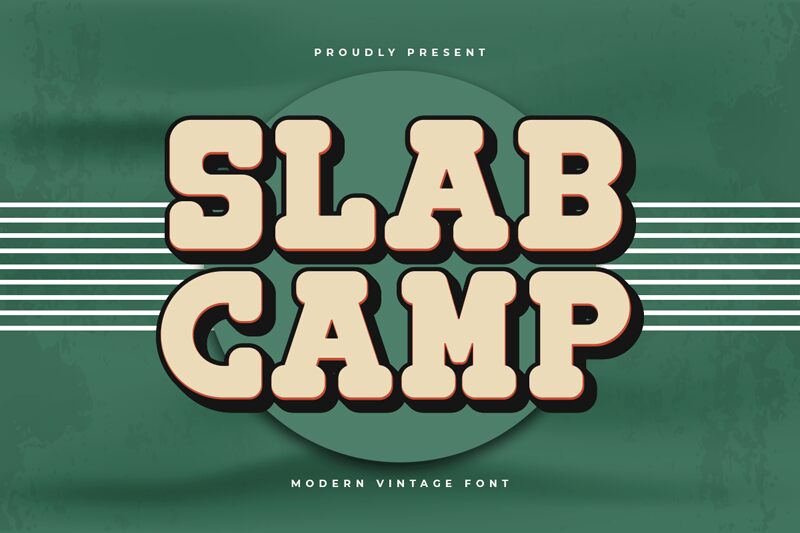
Slab Camp, designed by Kong Font, captures a bold yet playful essence with its distinctive slab serif style. The strikingly heavy strokes evoke a sense of confidence and strength, while the dynamic letterforms radiate warmth and approachability. Its robust structure offers a visually arresting presence, making it ideal for both eye-catching headlines and impactful branding.
This font’s substantial nature makes it perfect for adventurous designs—think outdoor events or rustic-themed projects. Whether used on posters, signage, or digital platforms, Slab Camp leaves a memorable impression that resonates with audiences. Its unique personality allows it to stand out in various contexts, merging fun with functional elegance seamlessly.